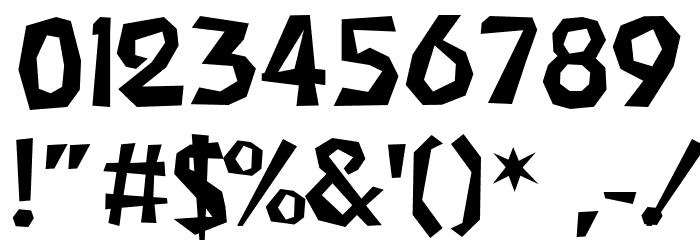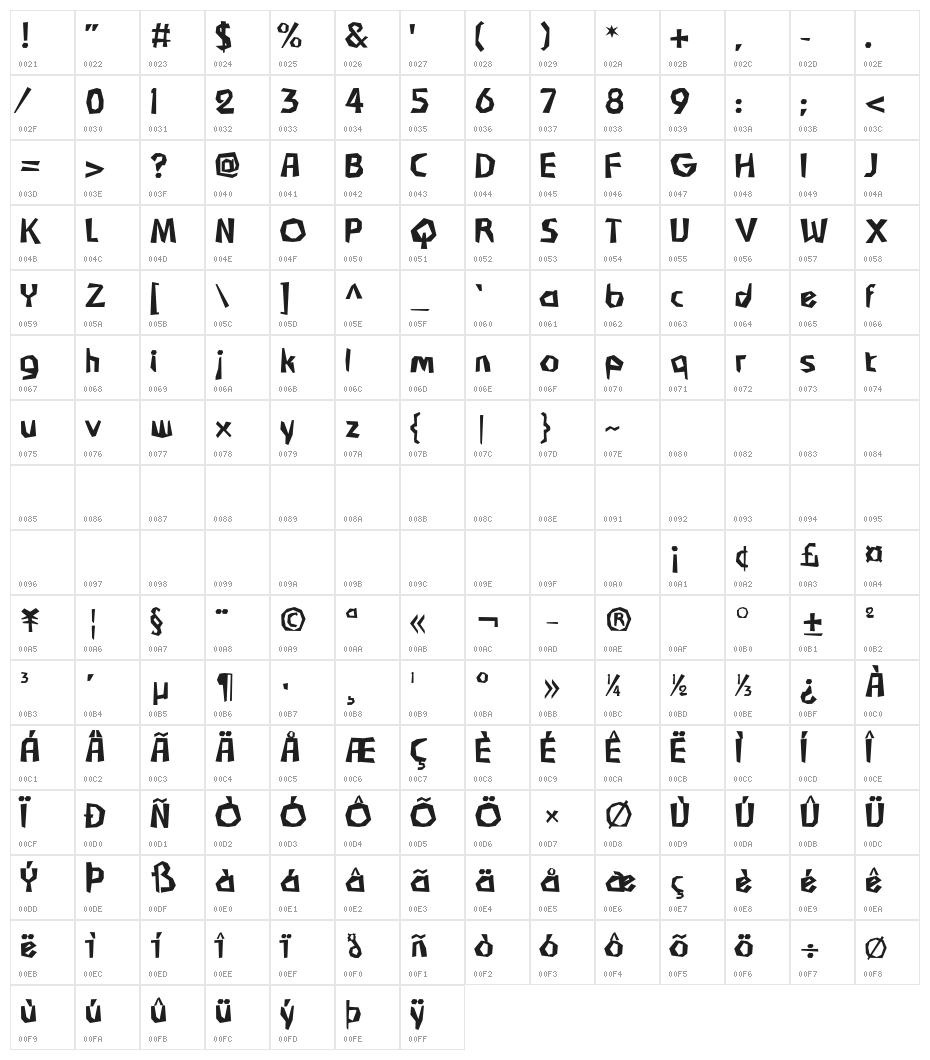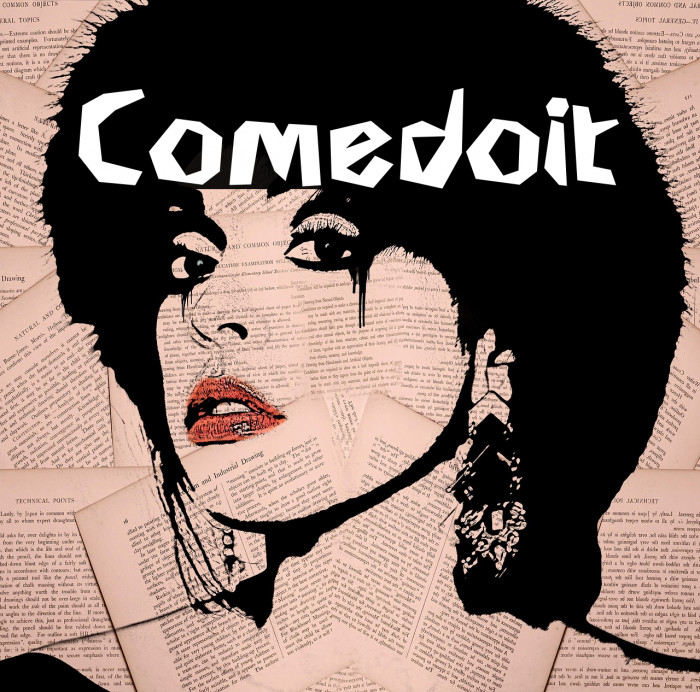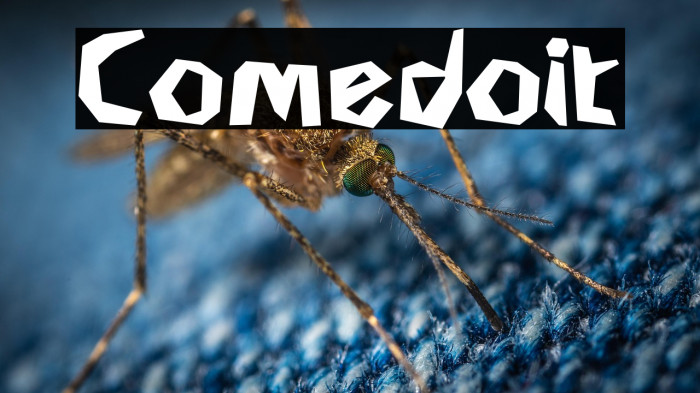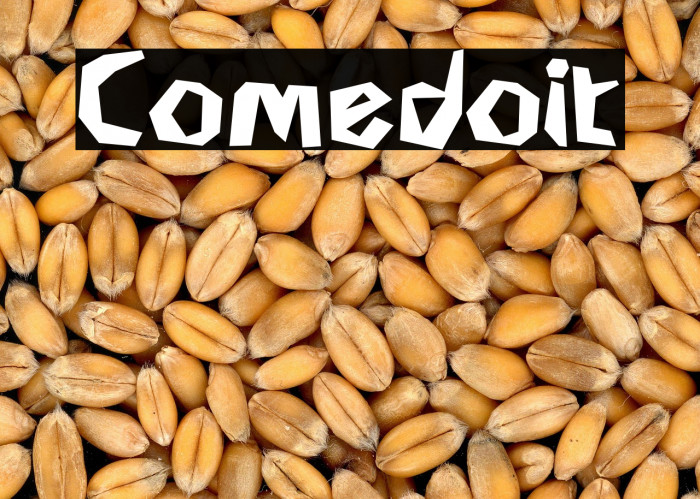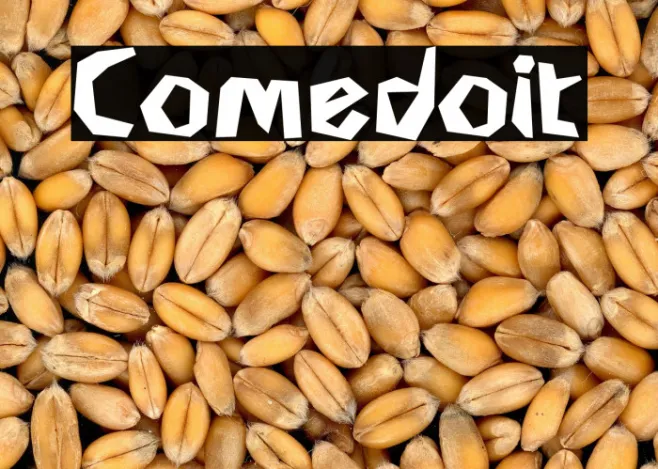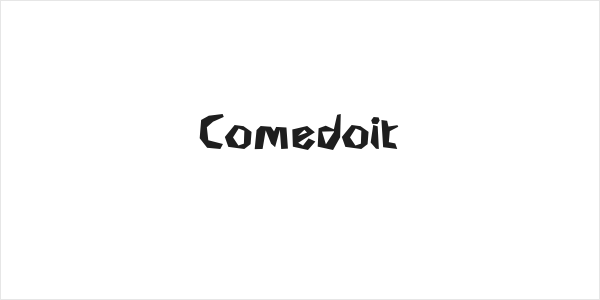
Comedoit Font
Comedoit Description
This font features a bold, angular design with a distinctly hand-crafted appearance. The characters are irregular and jagged, giving off an edgy and rebellious vibe. The uppercase and lowercase letters maintain a consistent style, with sharp edges and varying line thicknesses that create a dynamic visual impact. The numbers and special characters follow the same aesthetic, ensuring a cohesive look across all text elements. This font's unique style makes it stand out, perfect for projects that require a bold statement.
Overall StyleModern, Edgy
Proposed ProjectsIdeal for album covers, posters, streetwear branding, and any project needing a bold, rebellious touch.